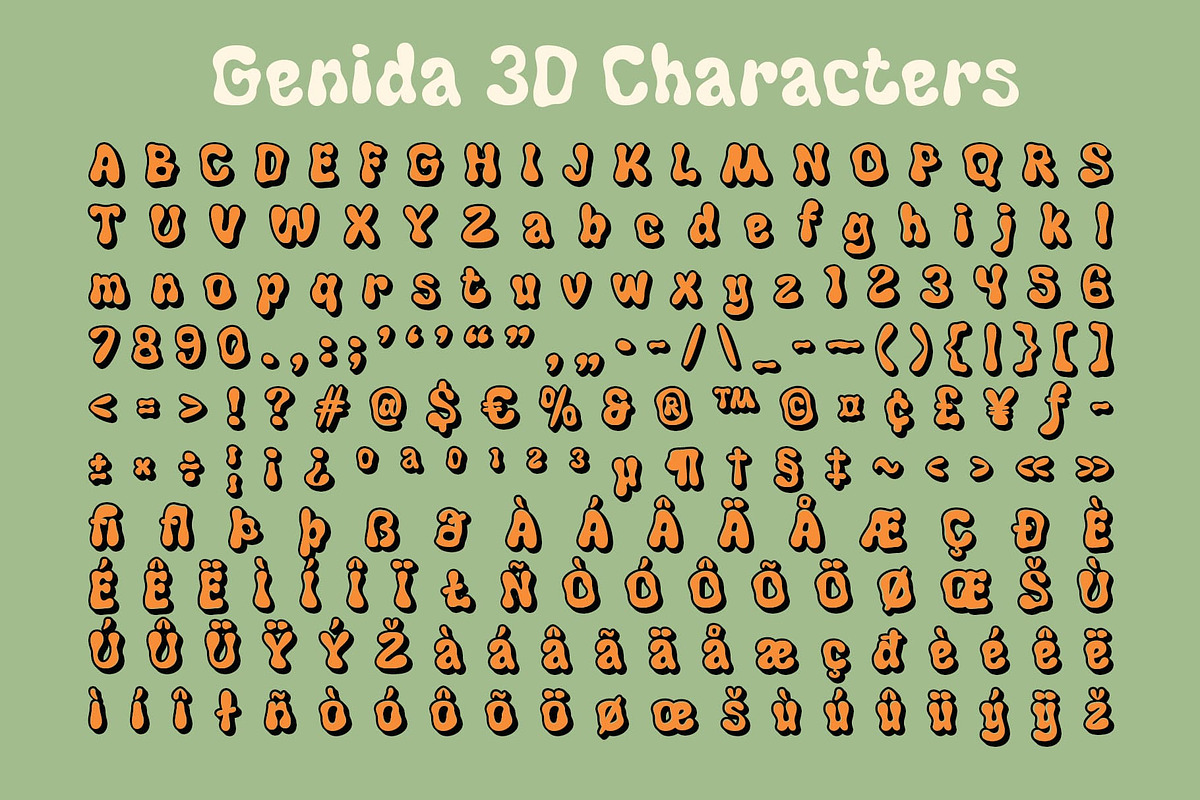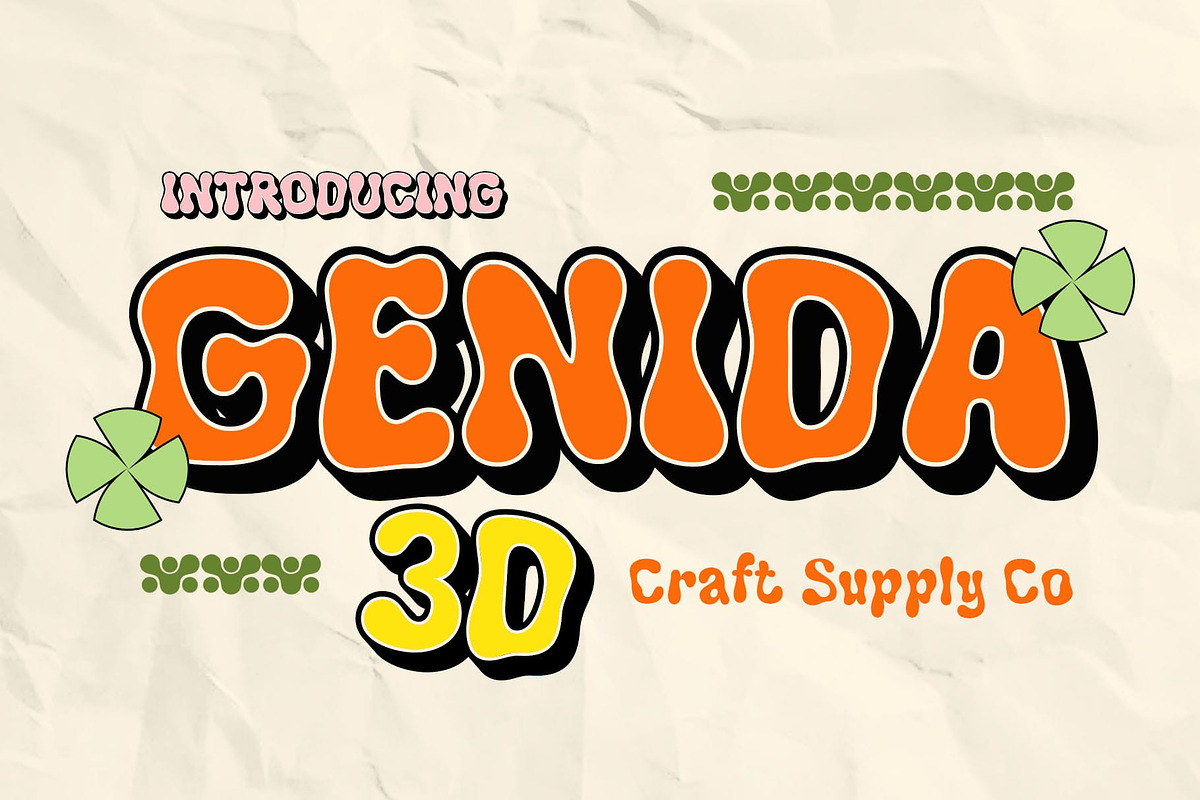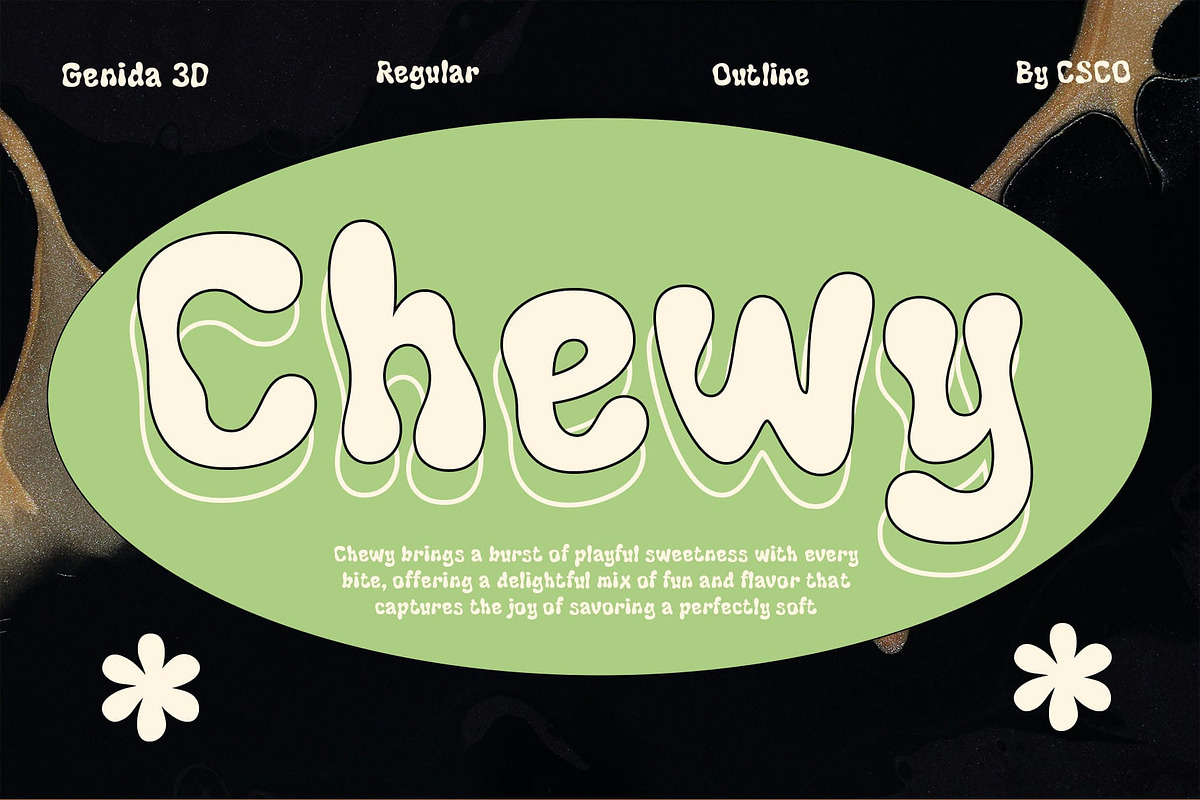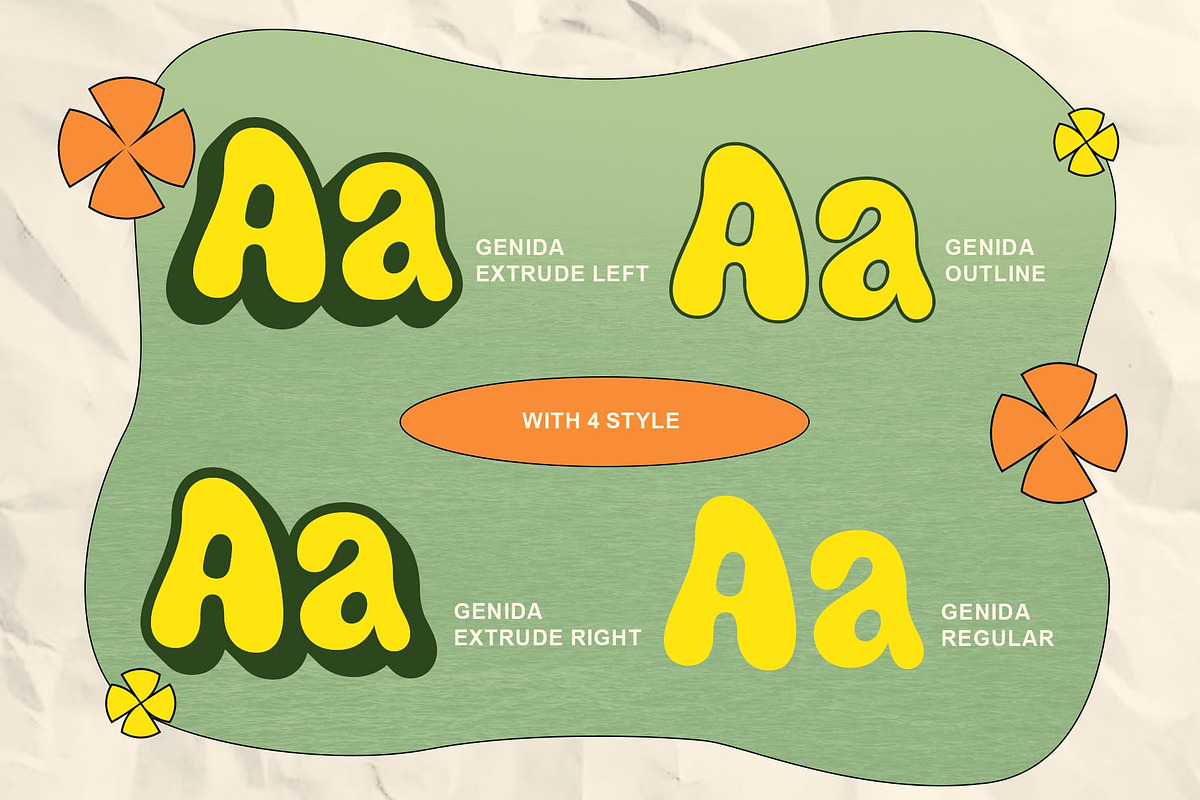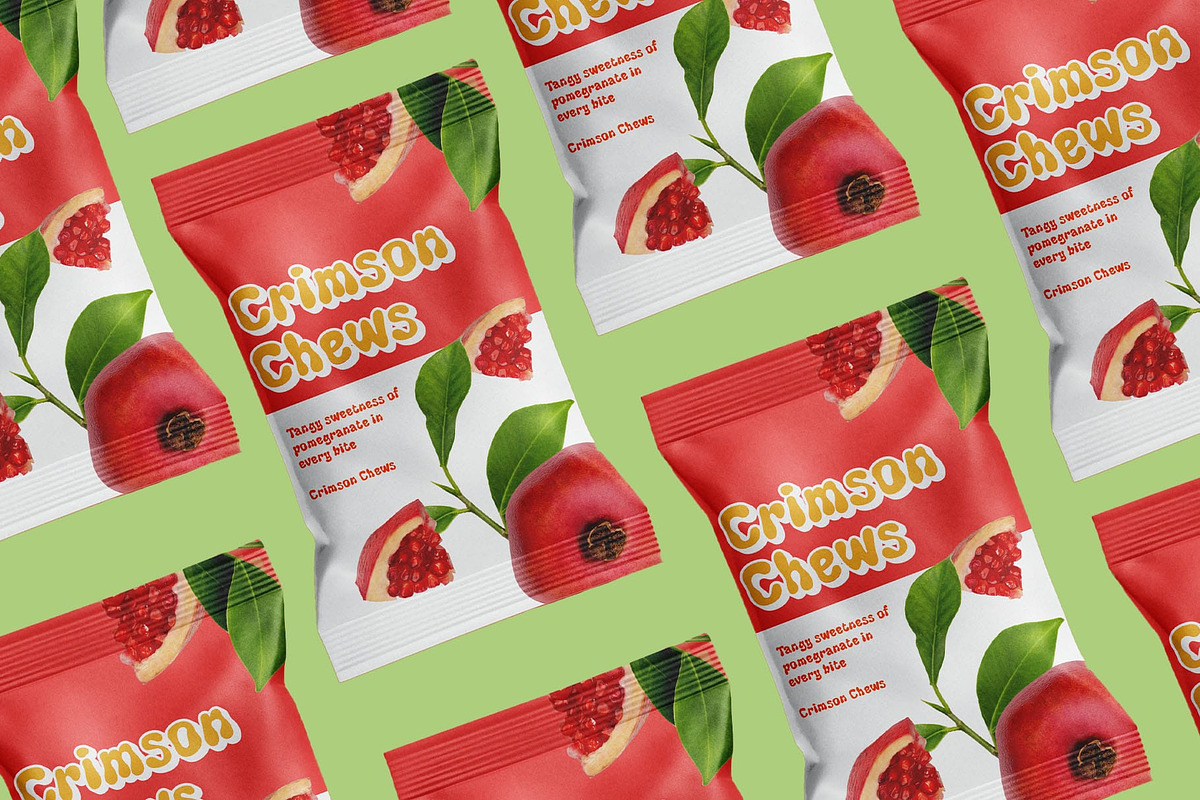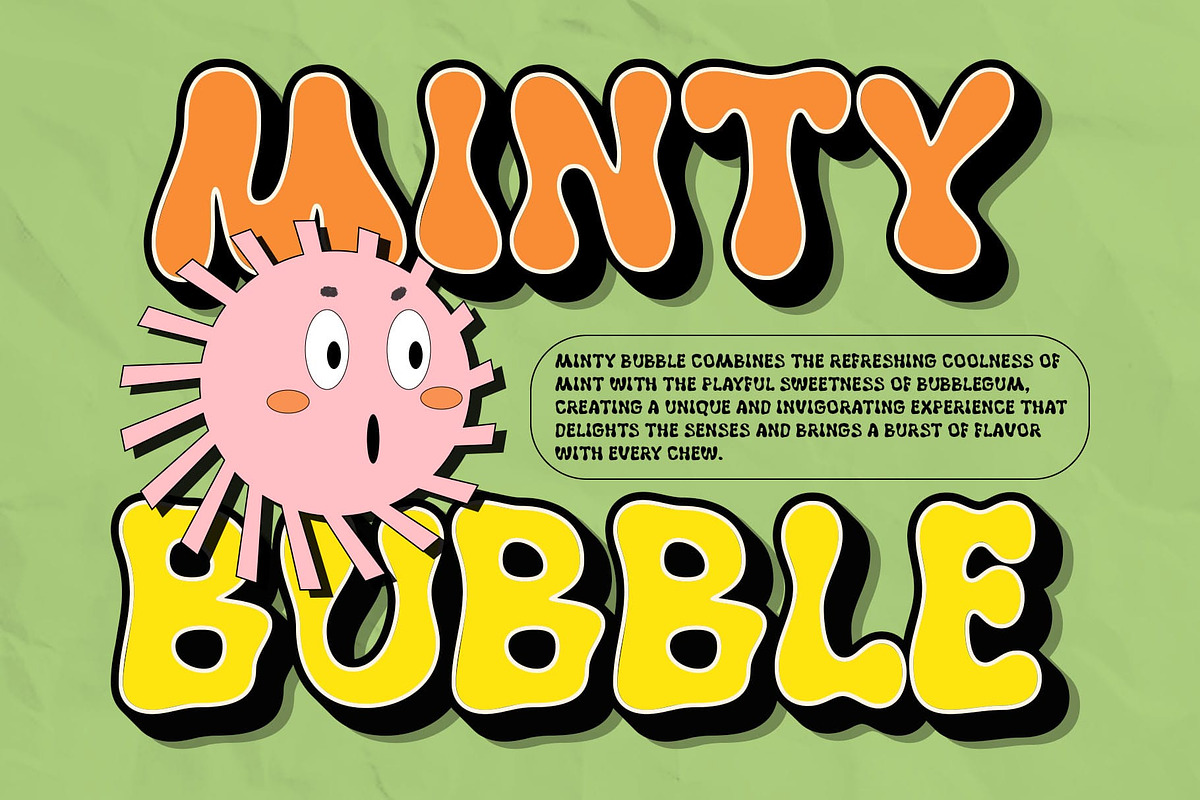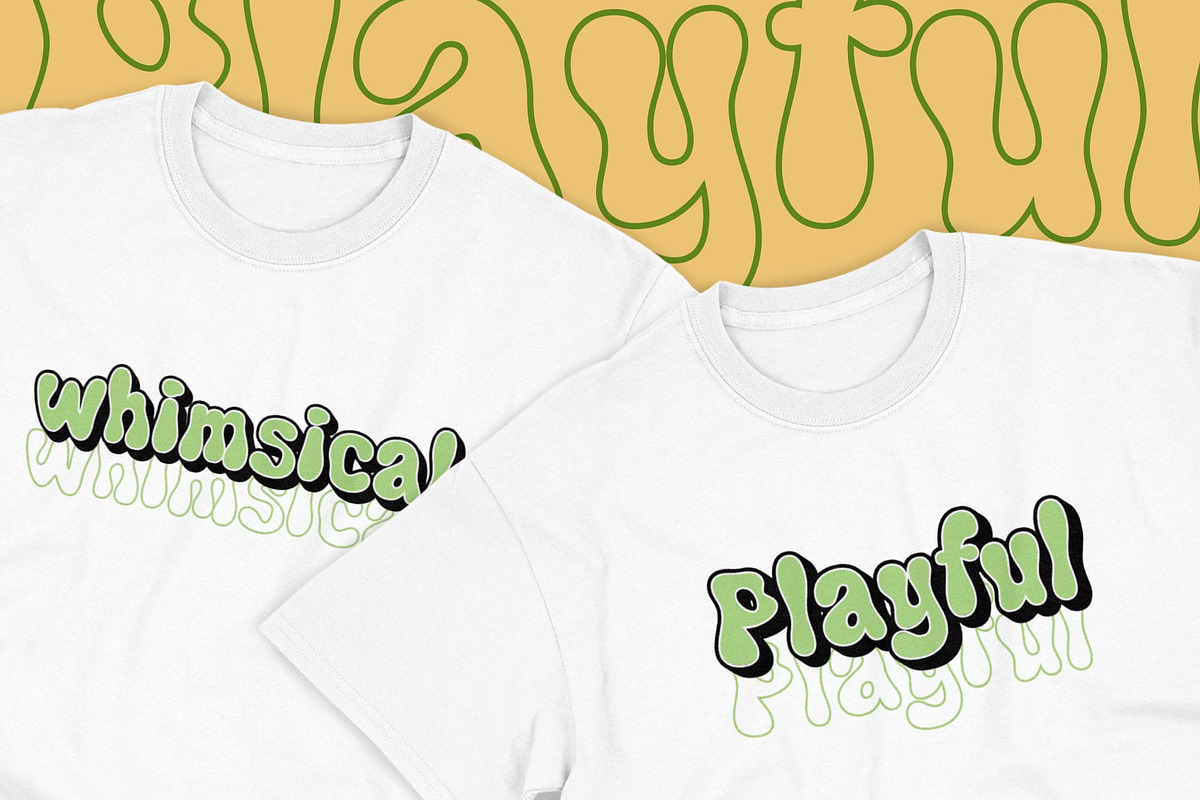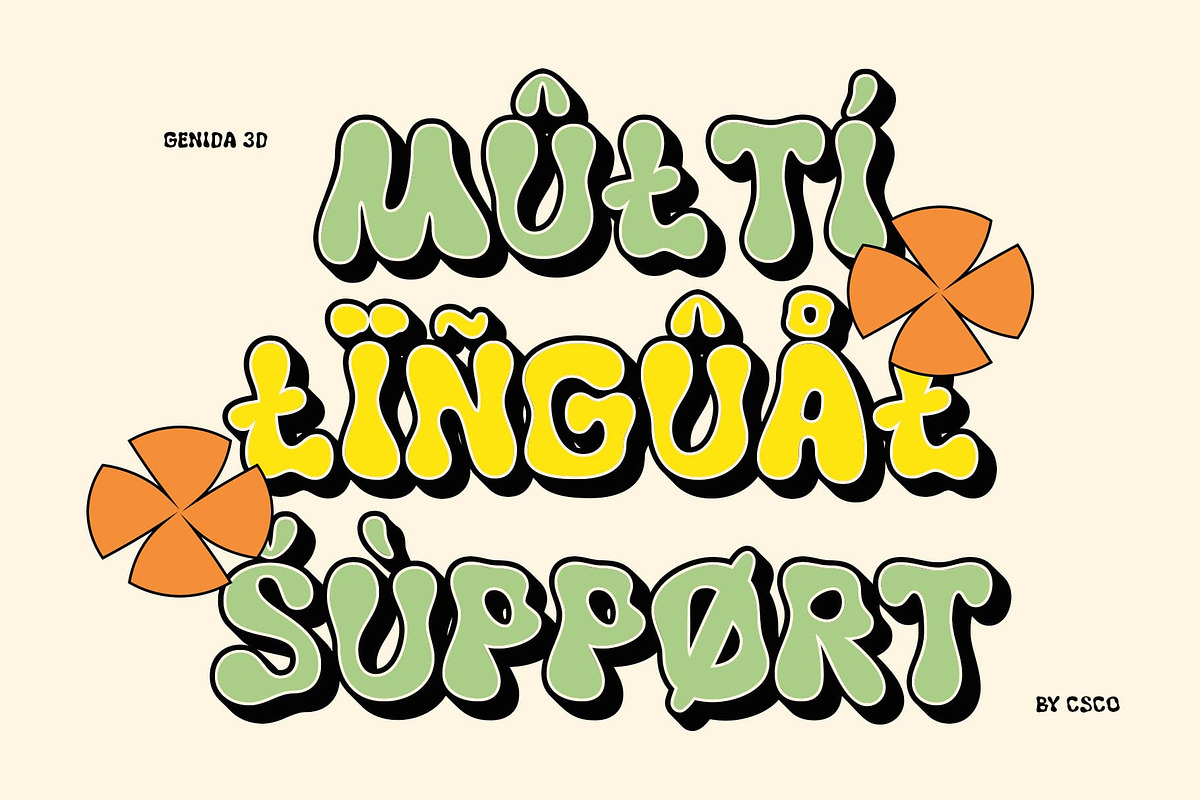
Genida 3D
Genida 3D Font: Vibrant Energy and Playful Dimension
Psychedelic Display Font with Unique Swirling Shapes Genida 3D is a bold and expressive psychedelic display font designed to make a statement. Its unique, swirling shapes and vibrant forms capture the essence of energy and creativity, delivering a funky and cheerful vibe. The dynamic curves and distinctive design elements create a playful and engaging appearance that draws attention, making it perfect for projects that seek to evoke excitement and a sense of freedom.
Enhanced with a Striking 3D Effect for Added Depth The addition of a 3D effect brings an extra layer of dimension to the Genida 3D font, enhancing its visual appeal and ensuring it stands out in any design. The depth created by the 3D effect amplifies the font’s already lively and energetic aesthetic, making it ideal for projects that demand a bold, attention-grabbing statement.
Perfect for Music Events, Bold Posters, and Experimental Graphics Genida 3D is tailor-made for designs that aim to infuse a sense of fun, creativity, and boldness. Whether used for music event posters, experimental graphics, or psychedelic-themed designs, this font will elevate any project with its dynamic personality. The font’s quirky, vibrant style adds an artistic, adventurous touch, making it ideal for designs that seek to capture a sense of playfulness and innovation.
- Genida Regular
- Genida Outline
- Genida Extrude Right
- Genida Extrude Left